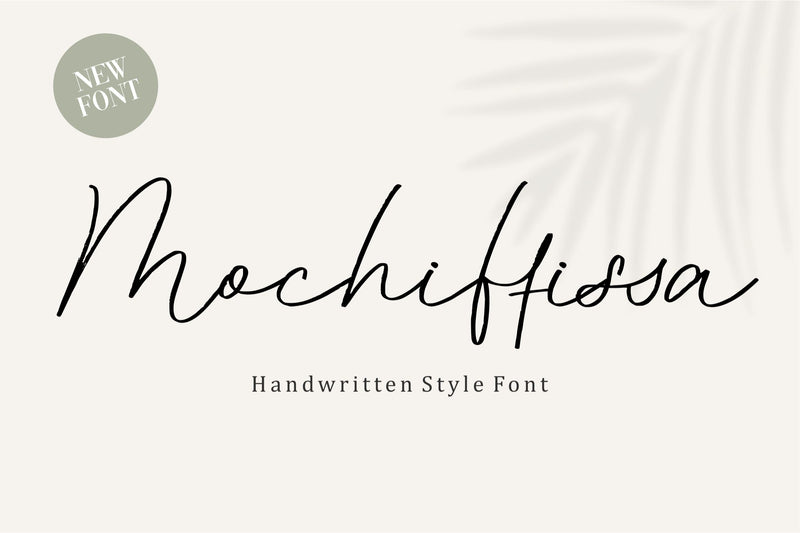
Mochiffissa
Introducing by Qwrtype
Proudly Present, Mochiffissa
Mochiffissa is a Handwritten Style Font
Mochiffissa is perfect for product packaging, branding project, megazine, social media, wedding, or just used to express words above the background.